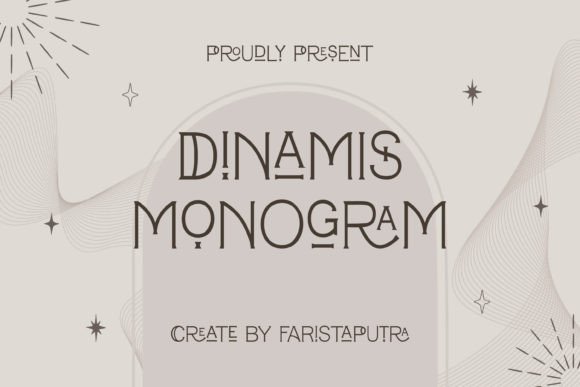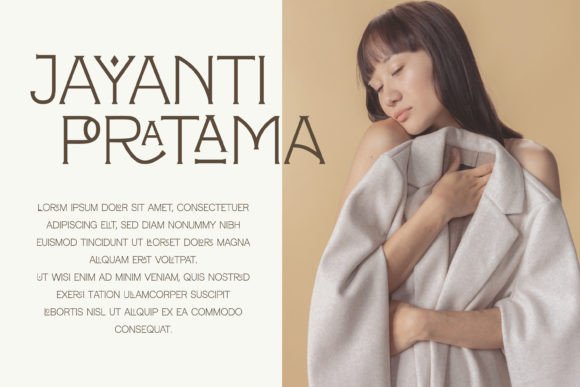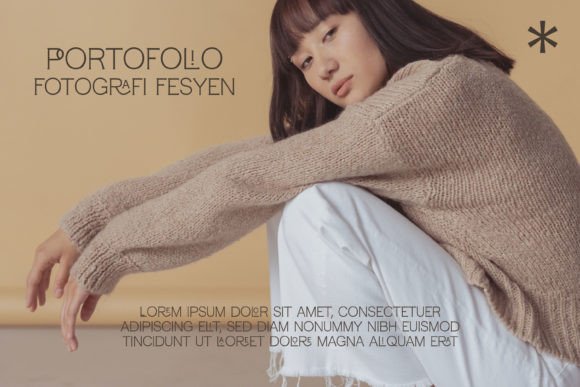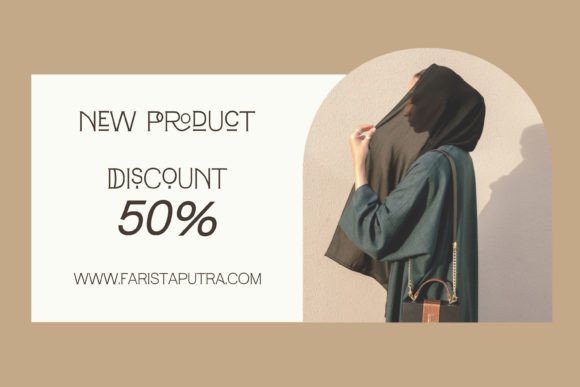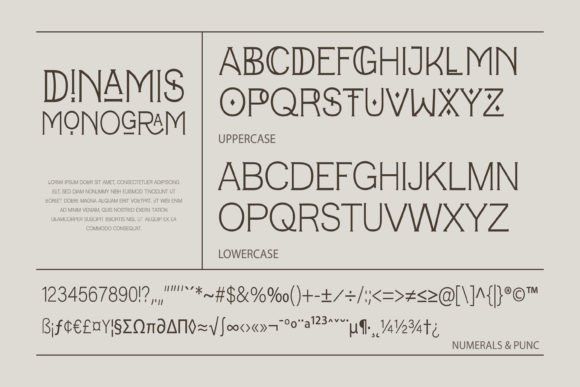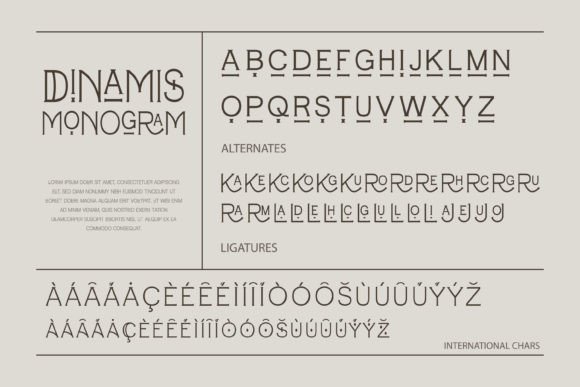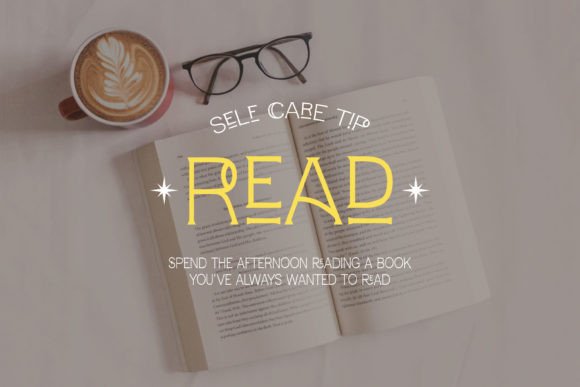
The Perfect Blend of Elegance and Magic
Have you ever found yourself lost in a world of design, searching for the perfect font to capture the essence of your next project? Maybe it was a late-night brainstorming session, surrounded by scraps of paper and half-finished sketches, or perhaps it was a moment of inspiration sparked by a beautiful sunset. Whatever the case, the hunt for the ideal font can be a daunting task, but what if I told you that I’ve stumbled upon a gem that’s sure to make your heart skip a beat?
Meet Dinamis Monogram Font, a modern serif font that exudes a unique blend of elegance and magic. With its geometric style and feminine touch, this font is a perfect fit for beauty, fashion, and logo projects, making it an absolute must-have for designers looking to elevate their branding game.
Dinamis Monogram Font Key Features
- Font Family: Dinamis Monogram is a unique, custom-designed monogram font.
- Size: The font comes in a single weight, but it’s highly customizable to suit various design requirements.
- Unique Characteristics: Dinamis Monogram features intricate, dynamic designs with a mix of geometric and organic elements.
Dinamis Monogram Font Review
I’ve had the chance to work with the Dinamis Monogram Font, and overall, I’m impressed with its unique design. ✨ The font’s distinctive, flowing lines and ornate details make it perfect for adding a touch of elegance to luxury brands and high-end products.
One of the standout features of the Dinamis Monogram Font is its versatility. ✨ It can be used in a variety of settings, from logos to packaging, and can be easily customized to fit different brand identities. Additionally, the font is highly legible, even at smaller sizes, making it ideal for applications where space is limited.
However, there are some limitations to consider. ⚠️ The font’s complexity may make it challenging to use in certain contexts, such as digital interfaces or mobile apps, where simplicity and legibility are paramount. Additionally, the font’s ornate details may not be suitable for brands with more minimalist or modern aesthetic.
Overall, I would highly recommend the Dinamis Monogram Font for luxury brands, high-end products, and applications where elegance and sophistication are key.
- Unique, flowing lines and ornate details
- Highly legible, even at smaller sizes
- Versatile and customizable
- Perfect for luxury brands and high-end products
Tips for Getting the Most Out of Dinamis Monogram Font
Use Dinamis Monogram Font for monogram designs, logos, and titles.
Experiment with different font sizes and colors to create visually appealing designs.
Combine Dinamis Monogram Font with other fonts to create a unique and eye-catching look.
Dinamis Monogram Font is ideal for:
Personalized gifts and monogrammed items.
Business logos and branding materials.
Q: Can I customize Dinamis Monogram Font to create a custom monogram?
Yes, Dinamis Monogram Font can be customized to create a custom monogram. The font includes a range of monogram styles and layouts that can be combined to create unique designs. Additionally, designers can use font editing software to modify the font’s characters and create custom monograms.